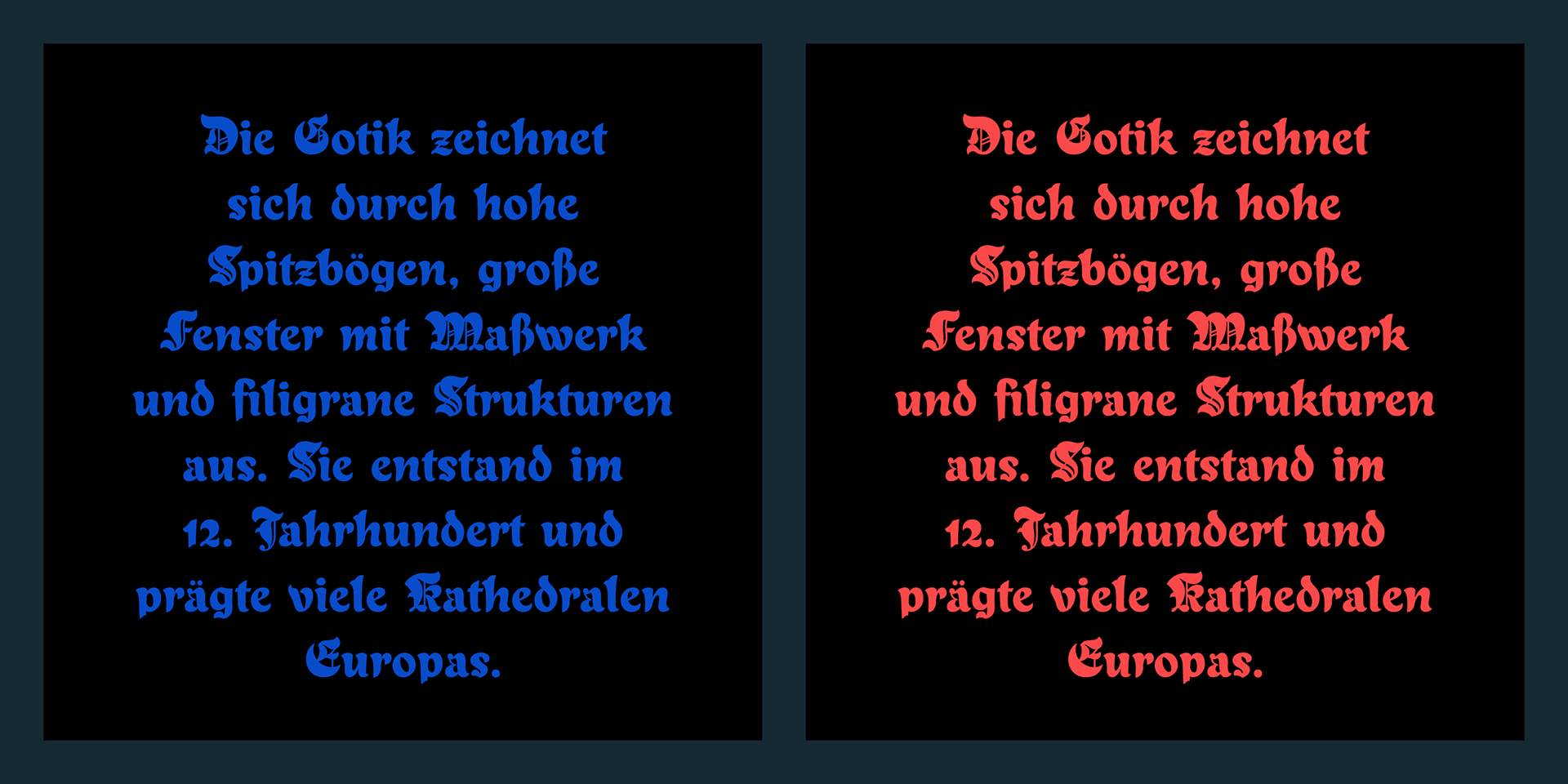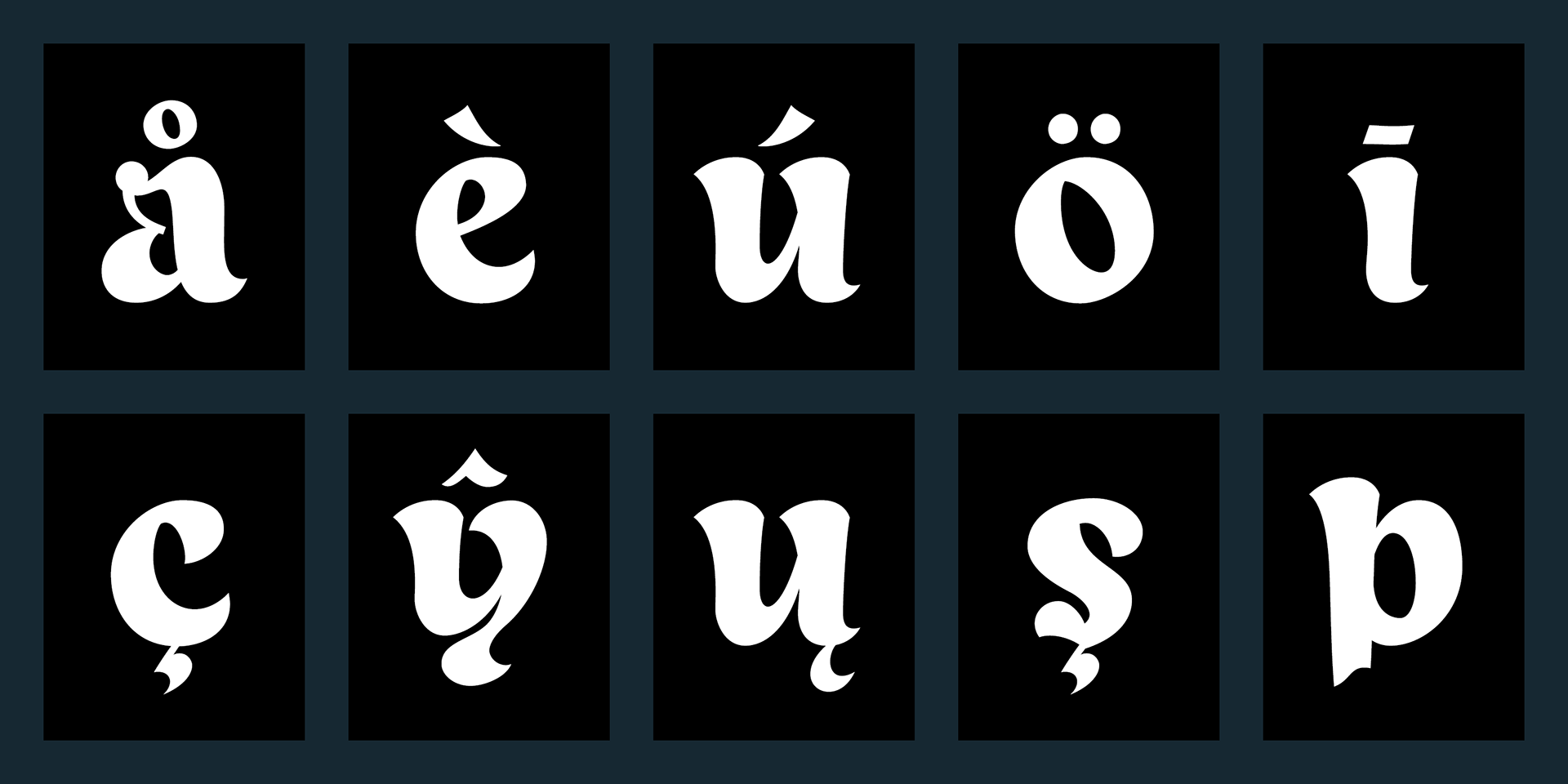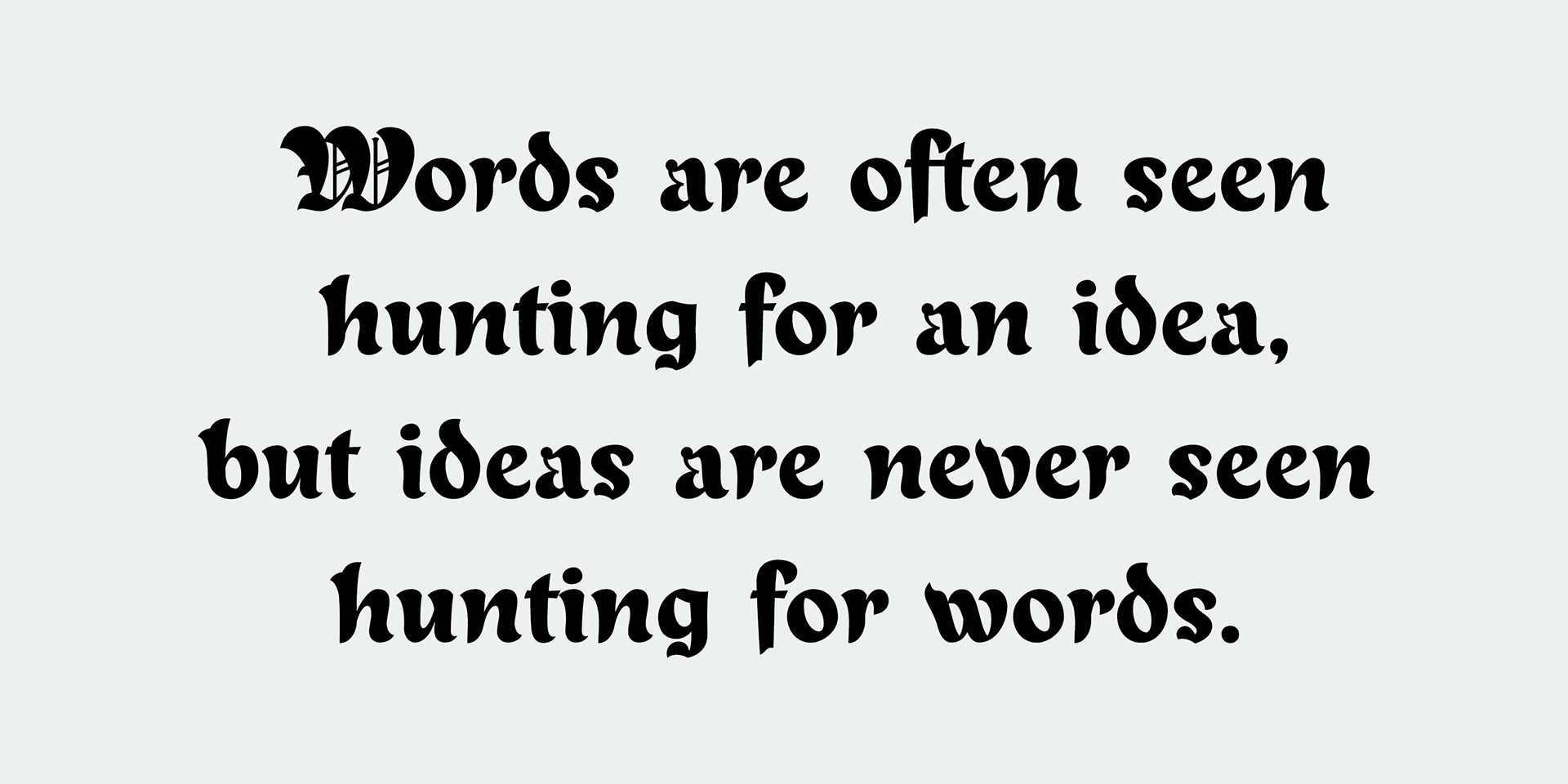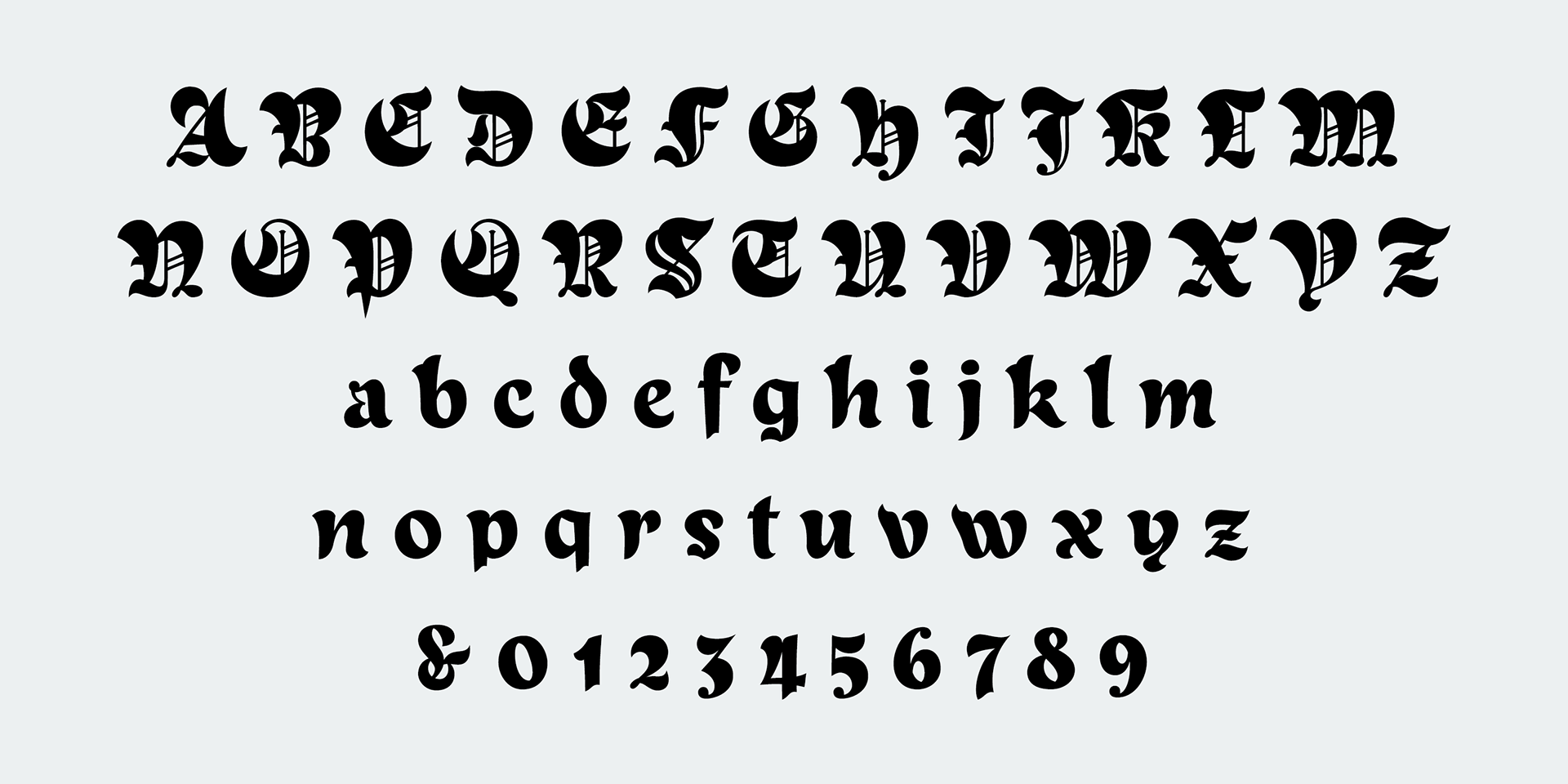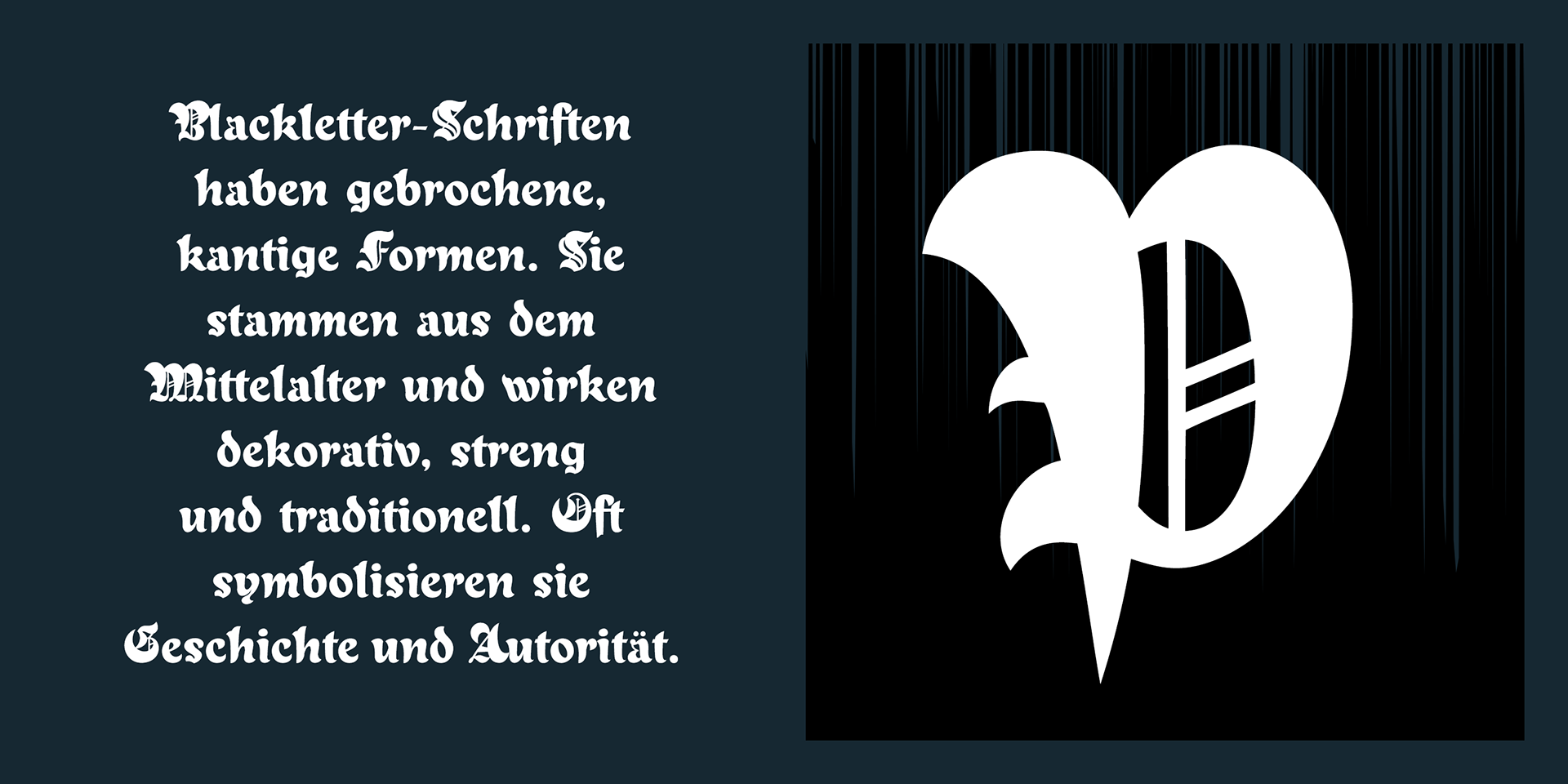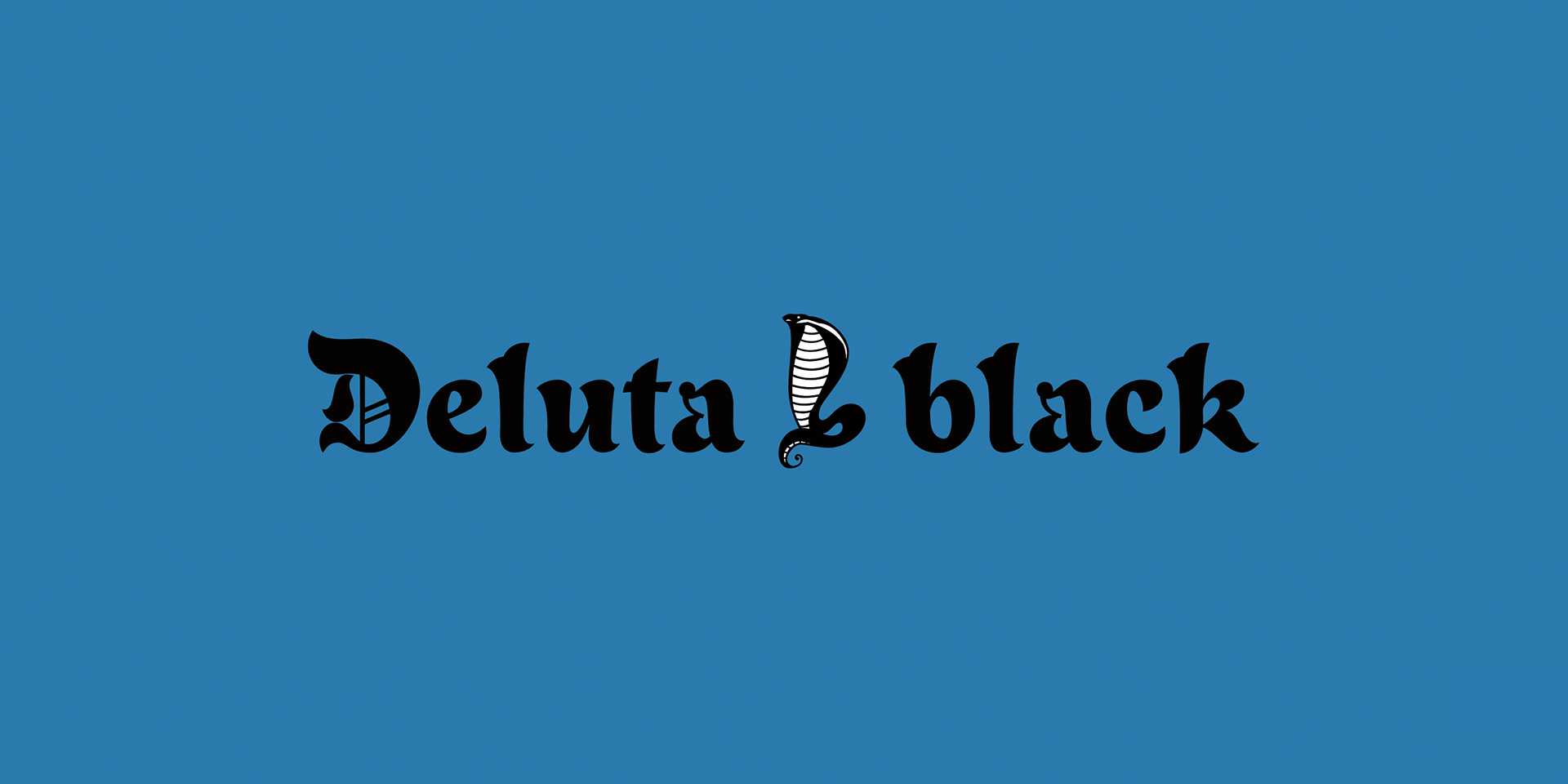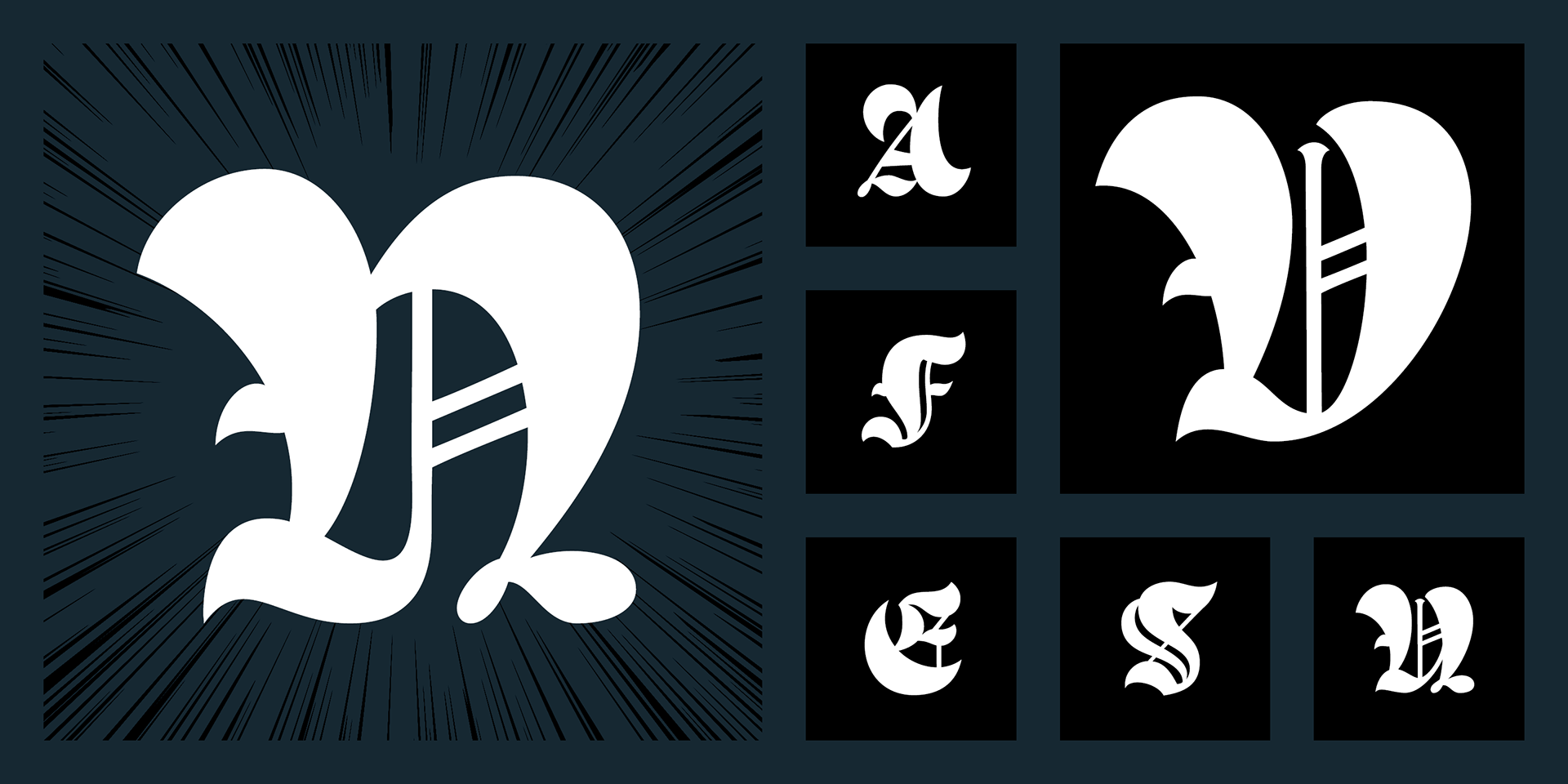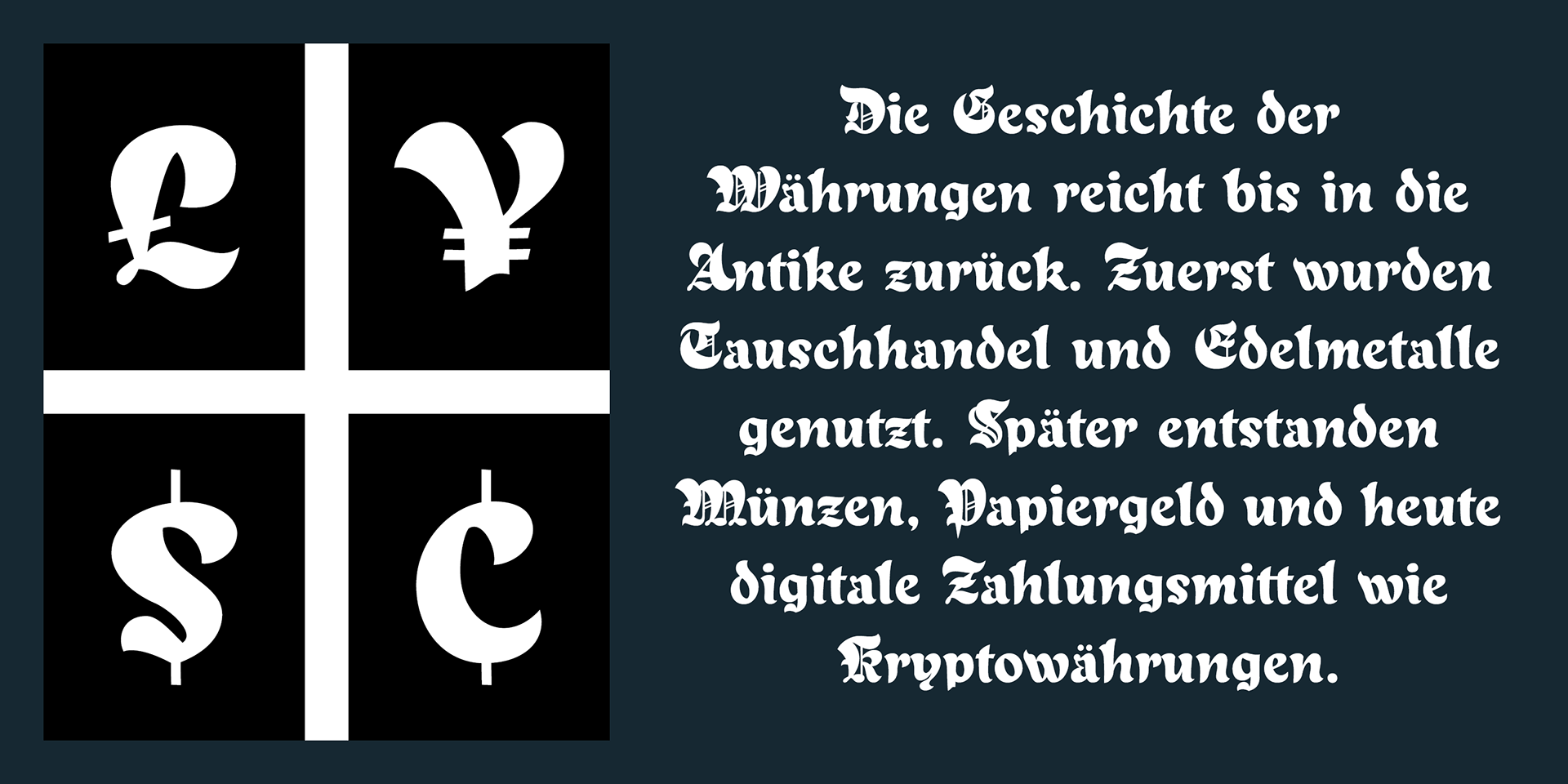
Deluta Black
You won’t find another blackletter font quite as lovely, unique, and playful as this one.
It’s a fresh twist on tradition—fun, quirky, and full of charm.